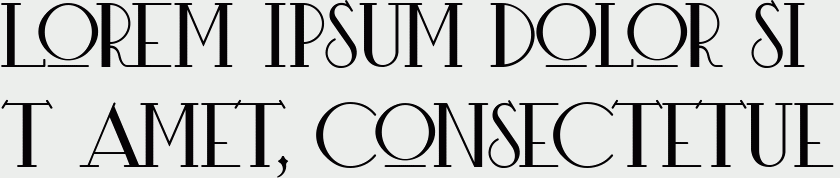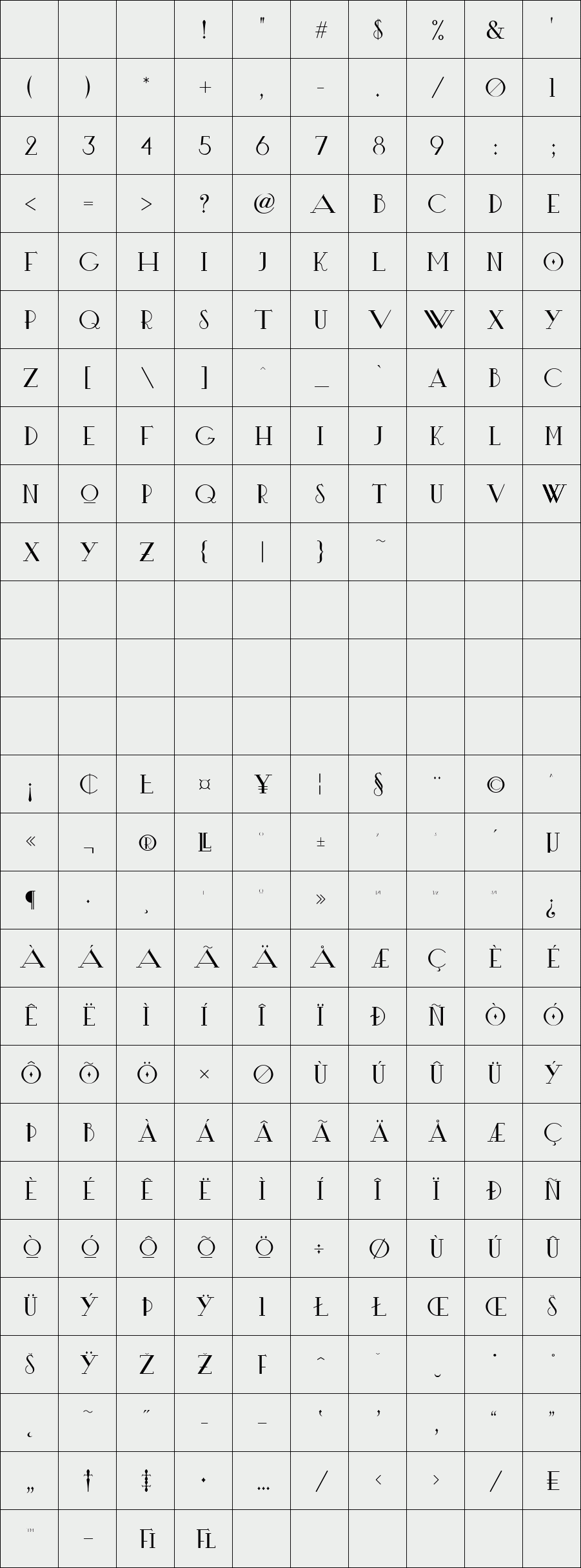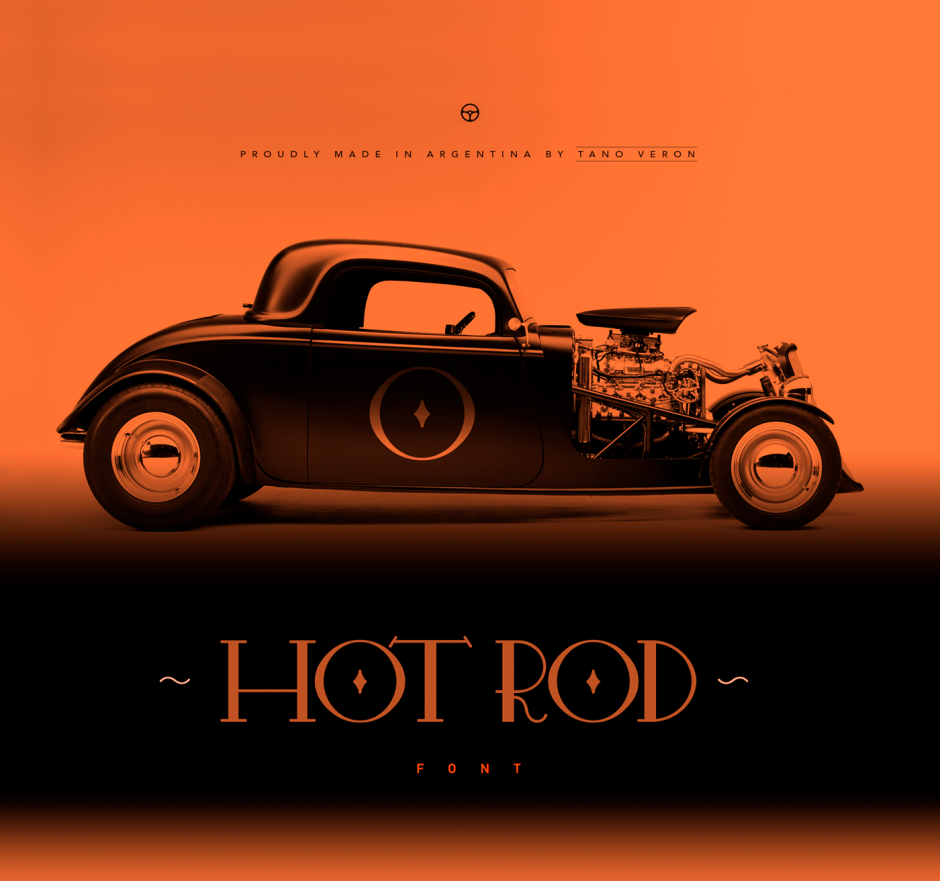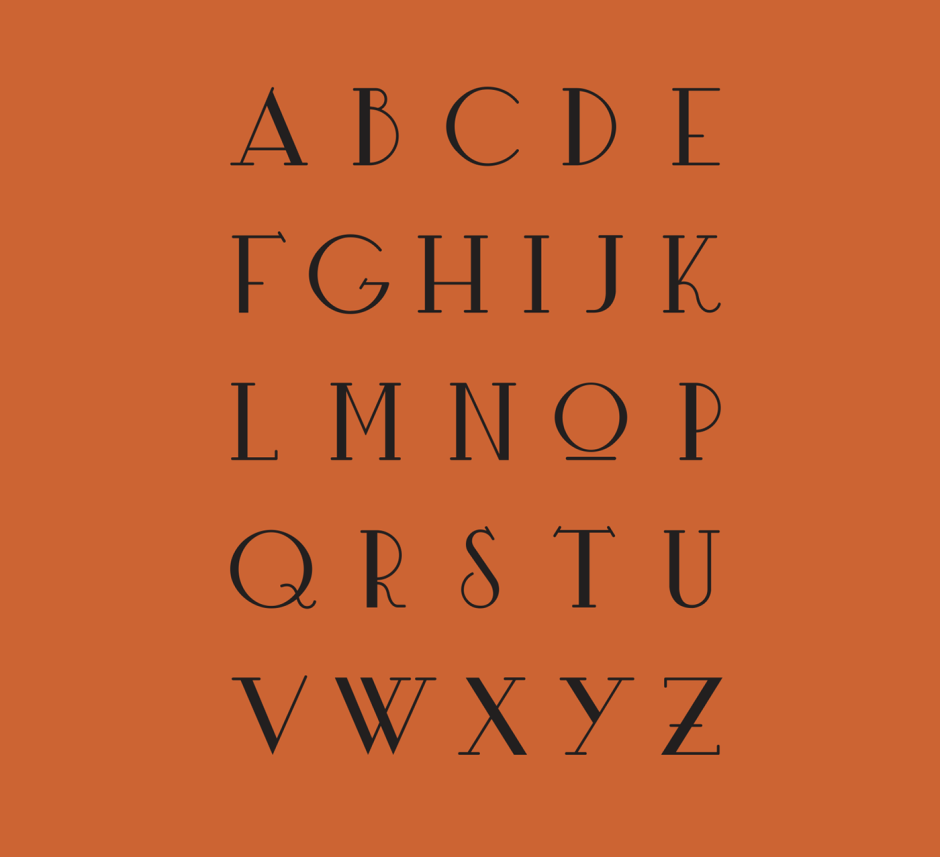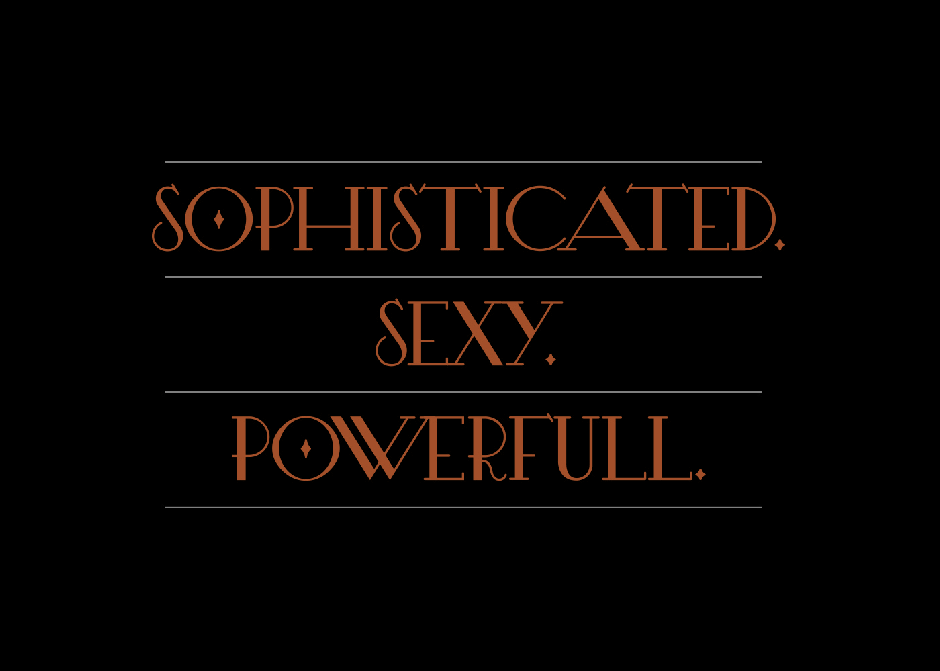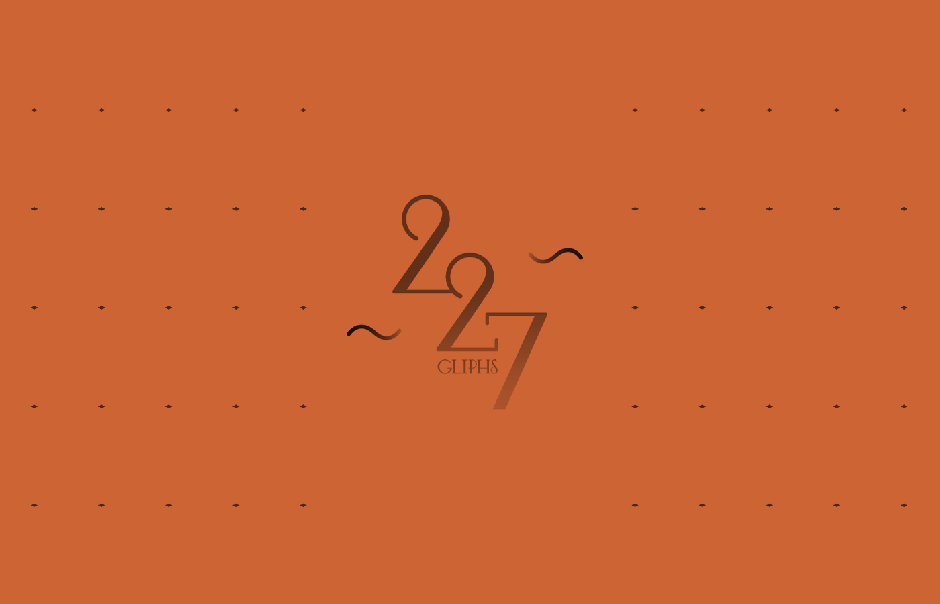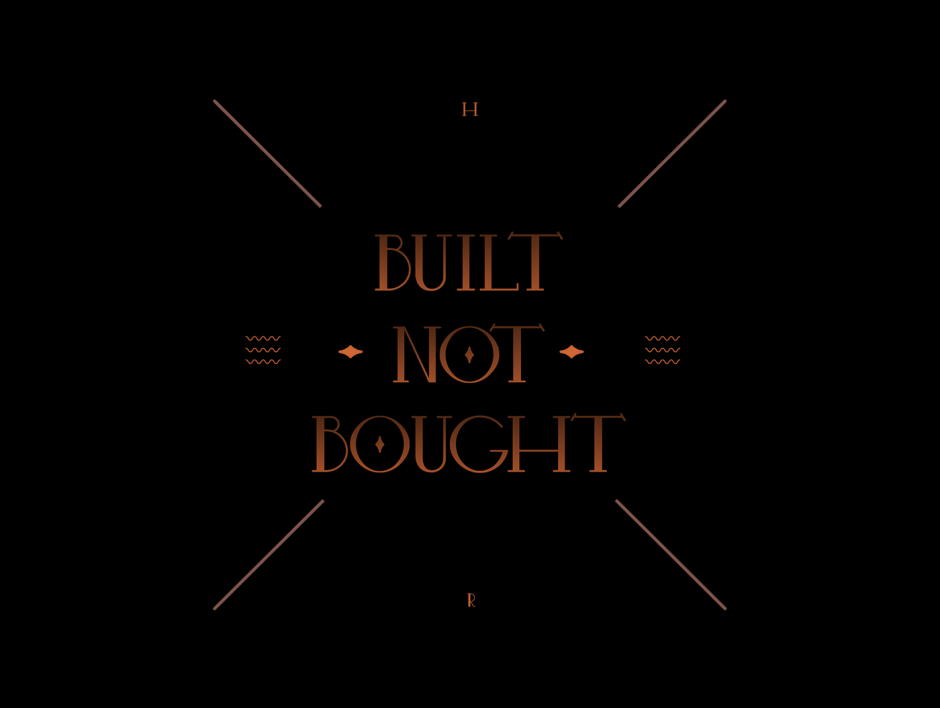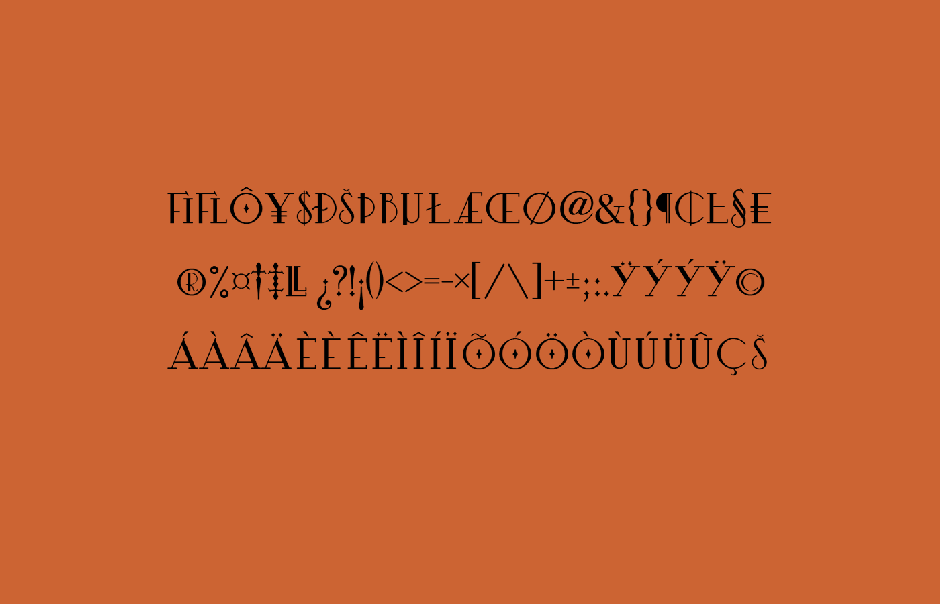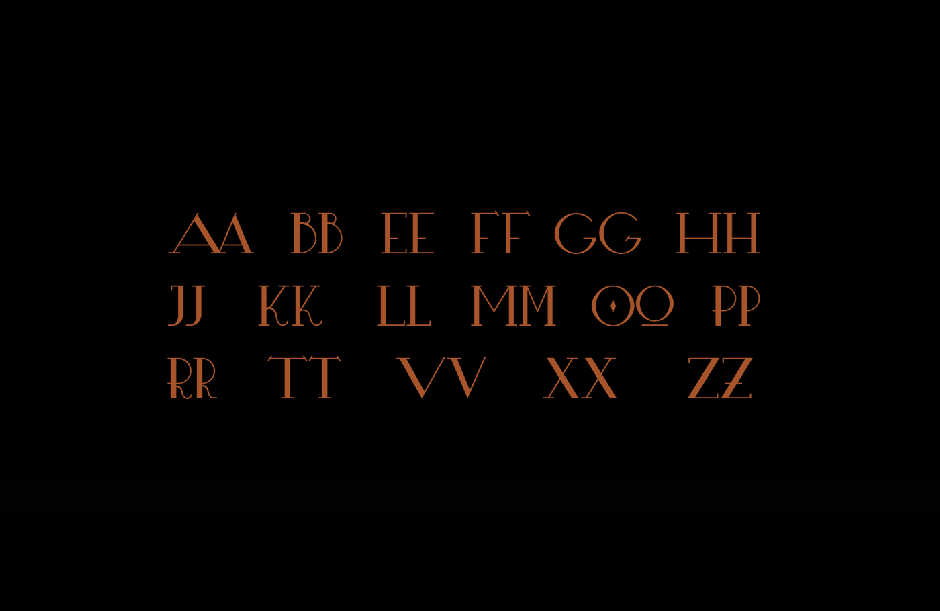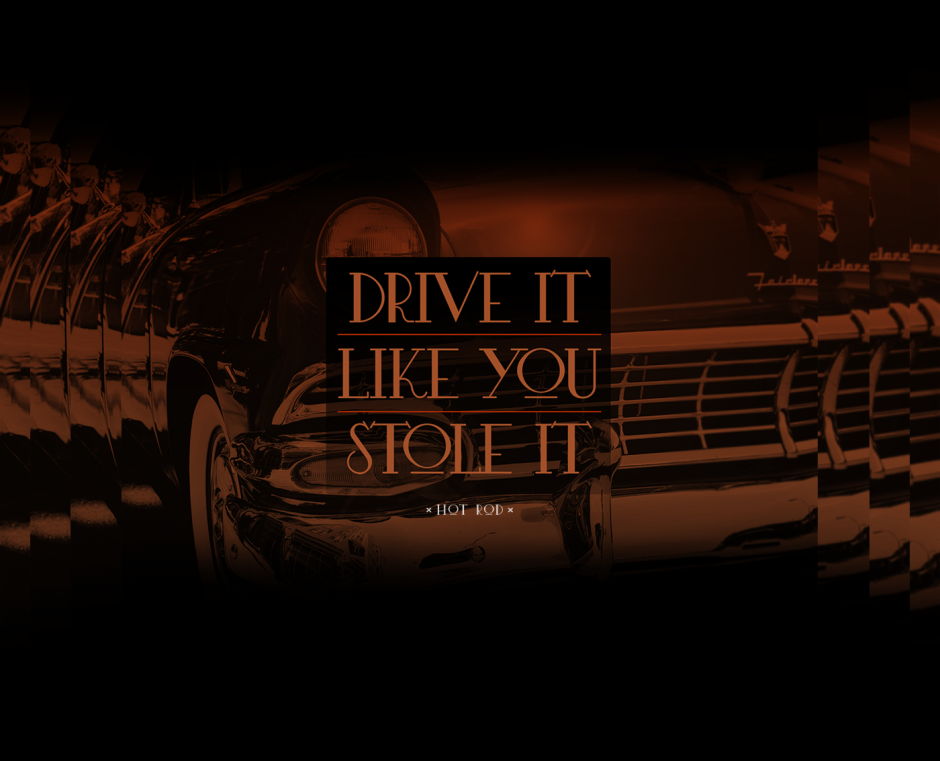
HOT ROD
HOT ROD is an uppercase display typeface inspired by vintage car models.
Is a serif typeface, with retro style, powerfull & strong.
Is elegant and sophisticated, but without losing the feeling of power.